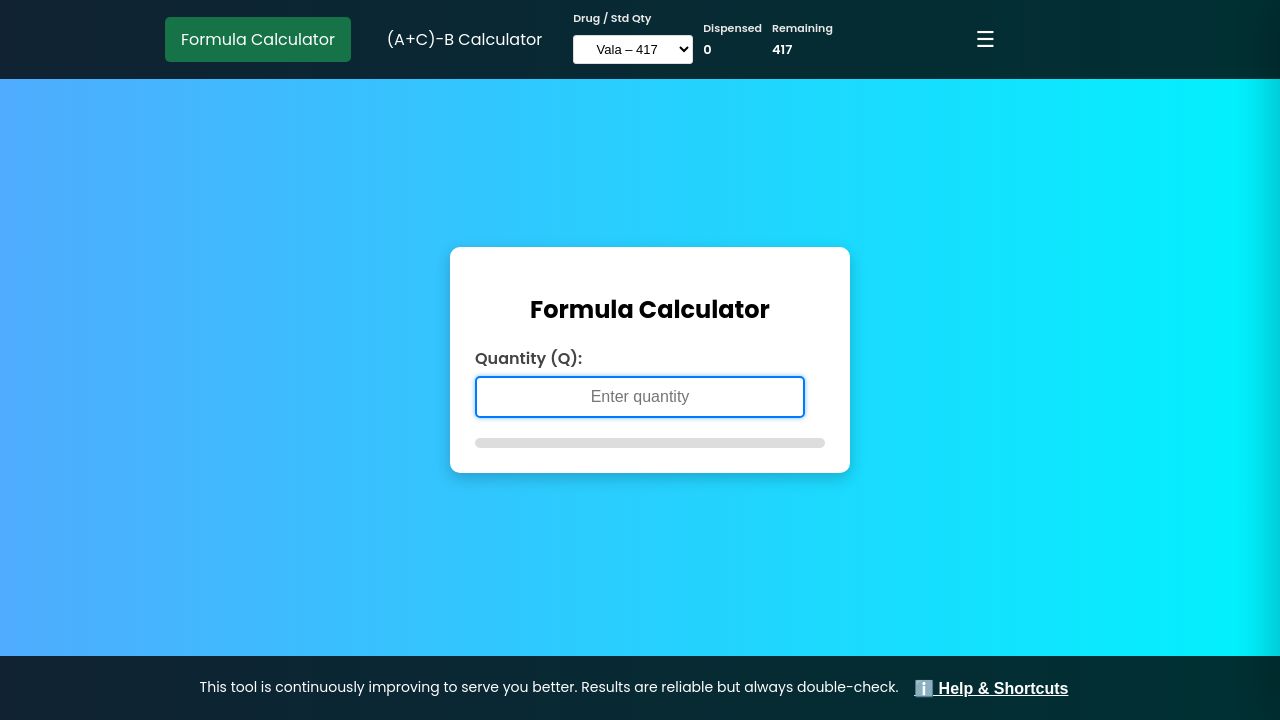
What fonts does Nir8 use?
NIR8 Calculators, hosted on nir8.pages.dev, serves the pharmaceutical industry by offering an intuitive online assay calculator. The site employs Poppins, a versatile sans-serif font, which enhances readability and reflects a clear communication style essential for professionals in this field. By using a single weight of 400, NIR8 ensures consistency in its visual identity, making complex calculations accessible and user-friendly for its audience.
Frequently asked questions about Nir8.pages.dev's fonts
What fonts are used on nir8.pages.dev?
The primary font used on nir8.pages.dev is Poppins, specifically in the weight of 400. This choice supports clear and effective communication.
How does Poppins compare to other sans-serif fonts?
Poppins offers a geometric style that stands out against other sans-serif fonts. Its clean lines provide excellent legibility, making it suitable for serious applications like pharmaceutical calculations.
Are there other weights available for Poppins?
While nir8.pages.dev uses Poppins in the 400 weight, the font is available in multiple weights, ranging from thin to bold, allowing for versatile use in different design contexts.